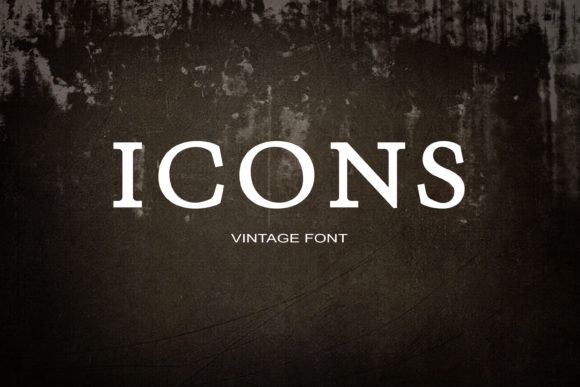
**Introducing Icons Font: The Serif Typeface for Every Occasion**
Embark on a typographic adventure with Icons Font, a captivating serif typeface that will elevate your designs to new heights. Crafted with meticulous attention to detail, Icons Font seamlessly blends classic elegance with modern functionality, ensuring high readability and visual appeal in any context.
**A Versatile Masterpiece for All Your Design Needs**
Whether you're crafting eye-catching headlines, captivating body text, or inspiring design elements, Icons Font has got you covered. Its versatile nature empowers you to tackle a myriad of projects with confidence, from sleek brochures and polished presentations to engaging websites and social media posts.
**Unleash Your Creativity with Endless Possibilities**
With Icons Font, the possibilities are limitless. Let your imagination soar as you create stunning designs that leave a lasting impression. Whether you're a seasoned typography enthusiast or just starting your creative journey, Icons Font empowers you to express your individuality and captivate your audience.
**Experience the Clarity and Elegance of Serif Fonts**
Embrace the timeless beauty of serif fonts with Icons Font. Its carefully crafted serifs add an air of sophistication to your designs, enhancing readability and drawing attention to important elements. Icons Font ensures that your message shines through with clarity and impact.